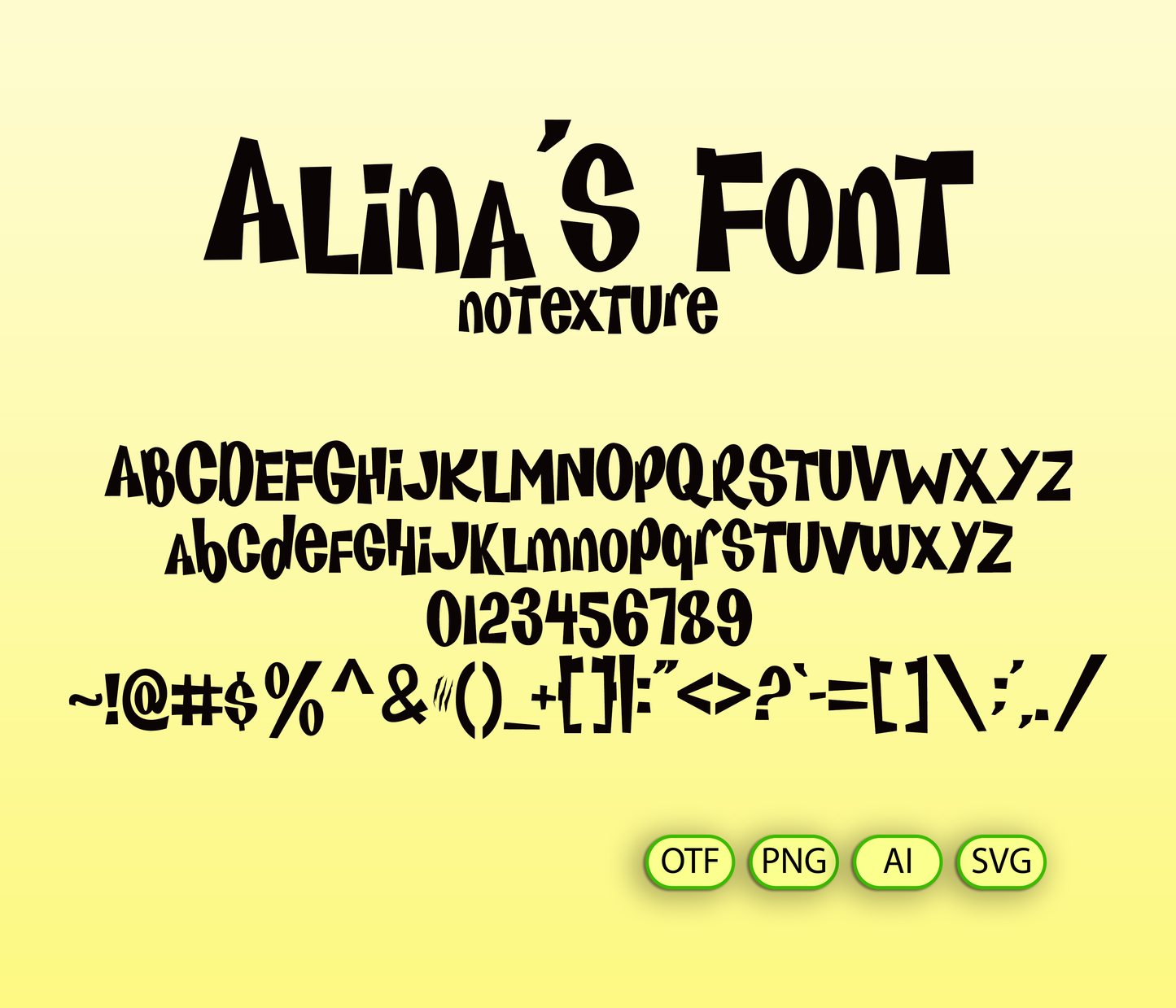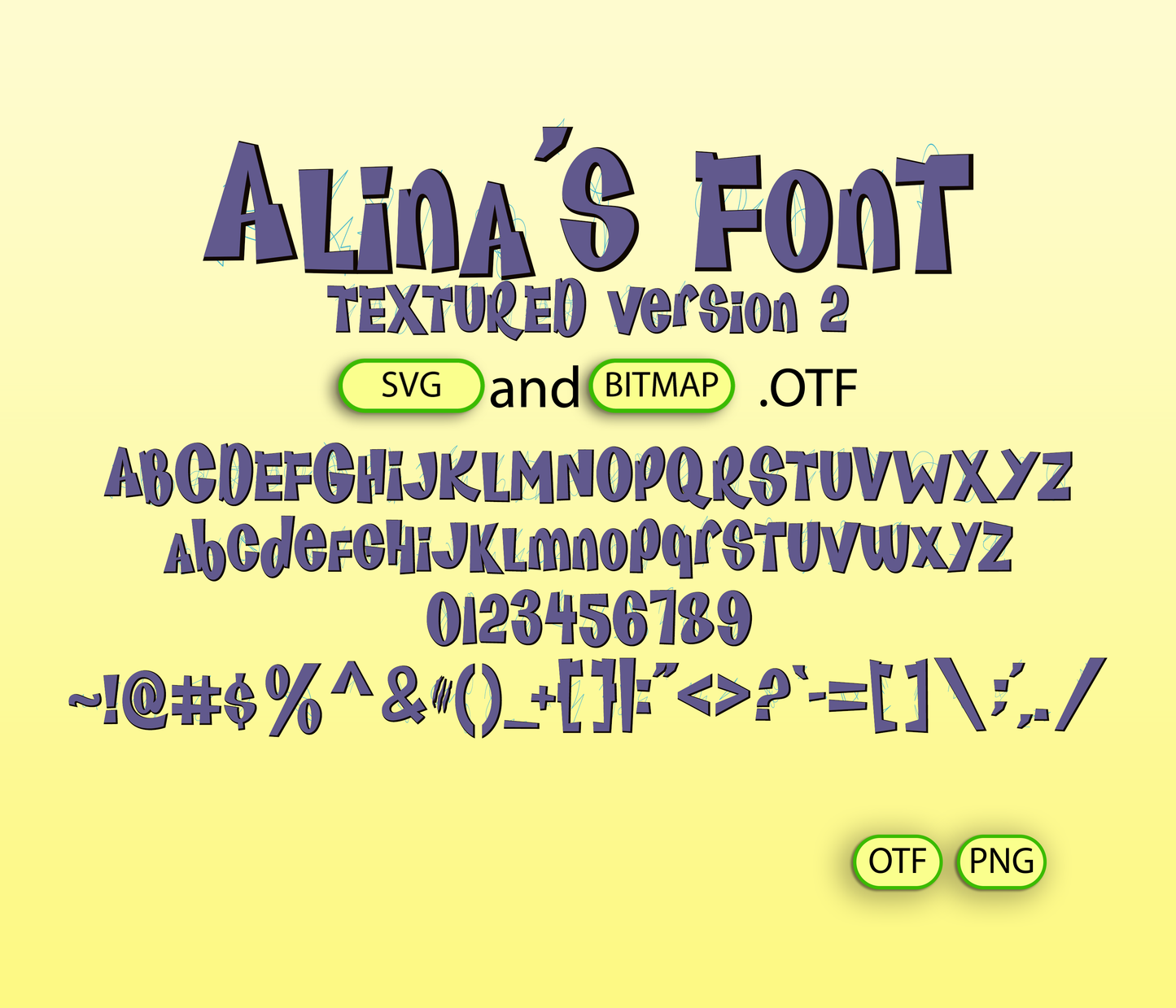
Feline Frenzy Font Textured
Feline Frenzy Font: Capturing the Whimsical World of a Popular Animated Series
The 'Feline Frenzy' font is an artistic representation of the quirky and adventurous spirit of a beloved animated series about three cat brothers. This font is not just about recreating a text style; it's about embracing the fun and whimsy of a unique animated world.
What font is the Feline Frenzy font?
This font, designed by Alina's Font, offers a playful and lively aesthetic that mirrors the adventurous spirit of a cat-centric animated series. The title lettering's fancy cartoon style is perfectly in sync with the show's animated nature, making it an excellent choice for projects that seek to evoke whimsical charm. Whether you're designing for kids or aiming to capture that nostalgic early-2000s animation vibe, the Feline Frenzy font delivers with its fun and engaging style.
What Can You Do With The Feline Frenzy Font?
The 'Feline Frenzy' font can be utilized in a variety of creative ways, particularly in projects that aim to capture the essence of childhood and adventure:
1. Designing playful invitations for children's parties with a cat-themed twist.
2. Creating fun and engaging educational materials inspired by animated adventures.
3. Crafting custom T-shirts and apparel featuring memorable quotes or characters from cat cartoons.
4. Producing digital content, such as blogs or social media graphics, that evoke 2000s nostalgia.
5. Designing promotional materials for events or screenings celebrating classic animated shows.
6. Personalizing stationery or school supplies with whimsical cat-inspired designs.
7. Developing animated content or games that resonate with adventurous themes.
8. Creating unique gifts or memorabilia for fans of feline-centric animations.
9. Designing posters or art prints that capture the spirit of playful cat characters.
10. Customizing accessories like backpacks and hats with artwork inspired by animated cats.